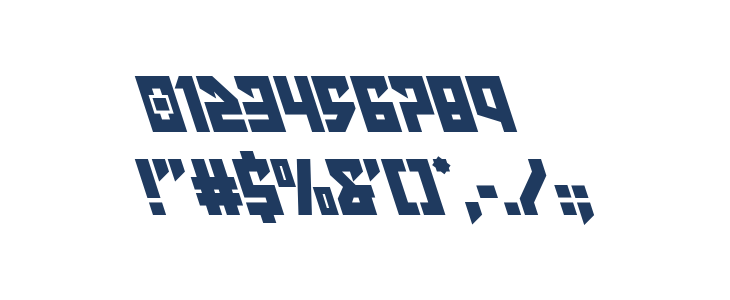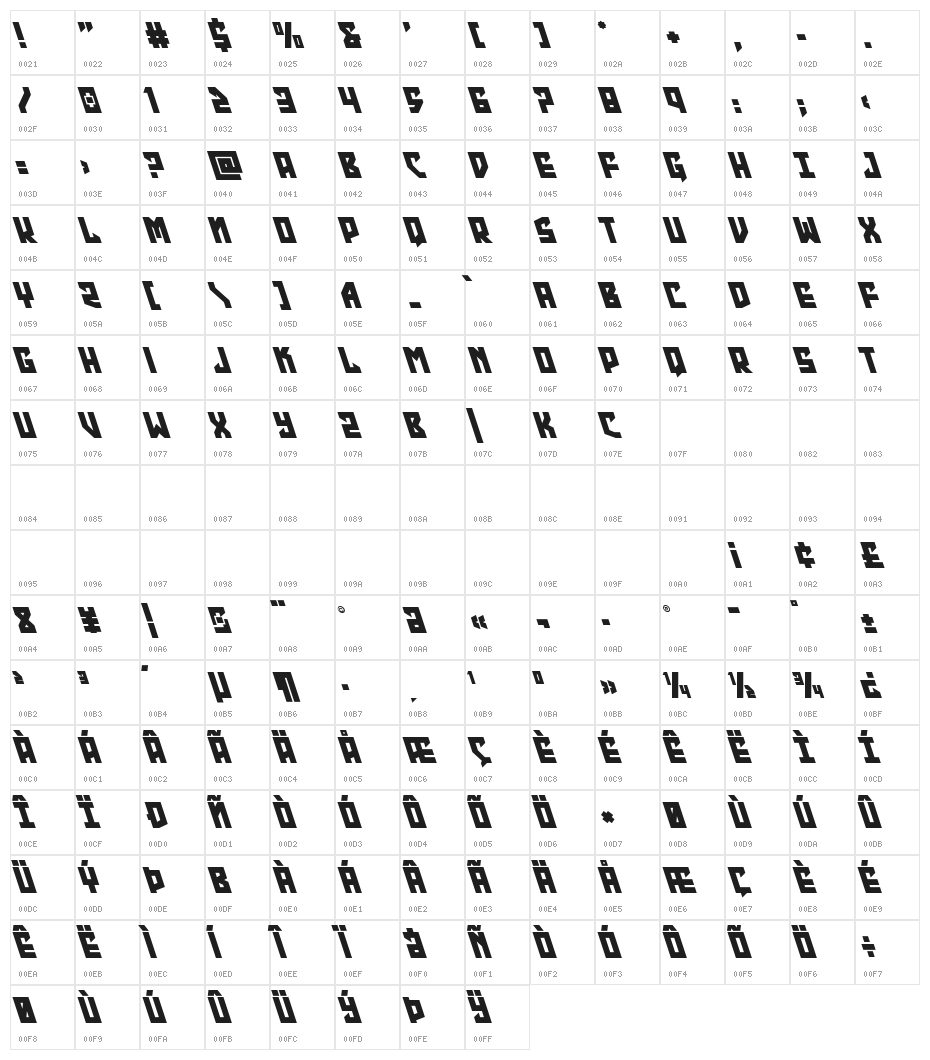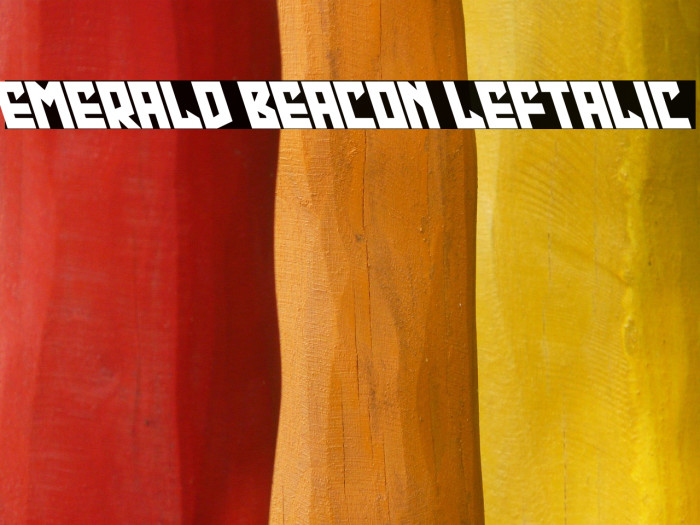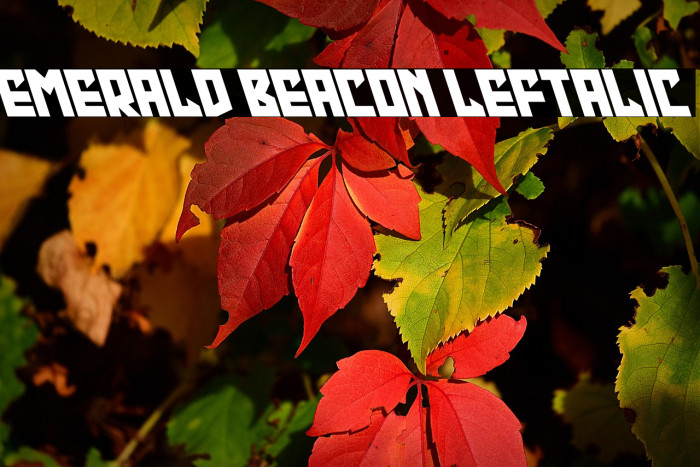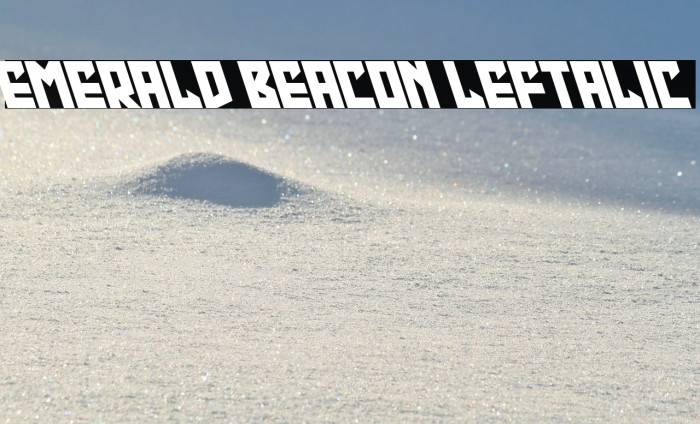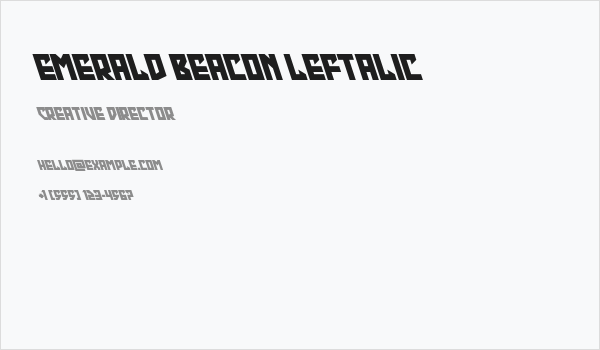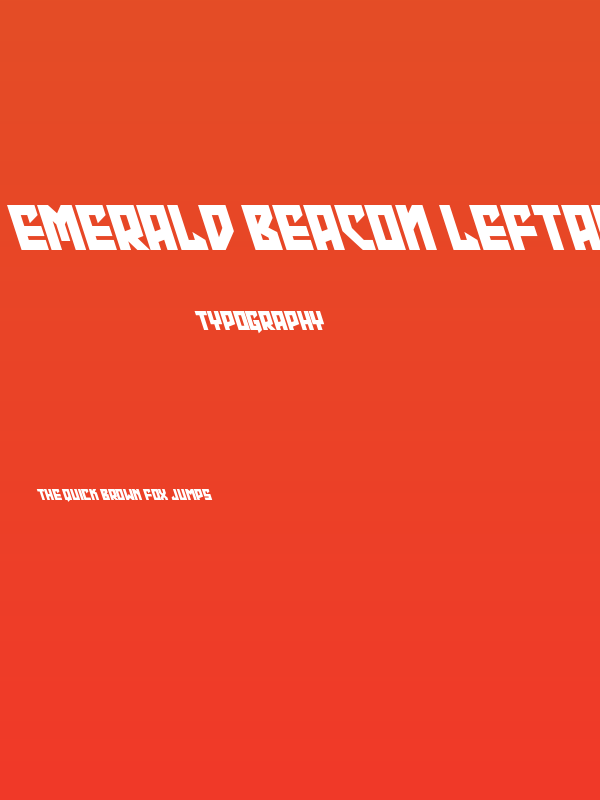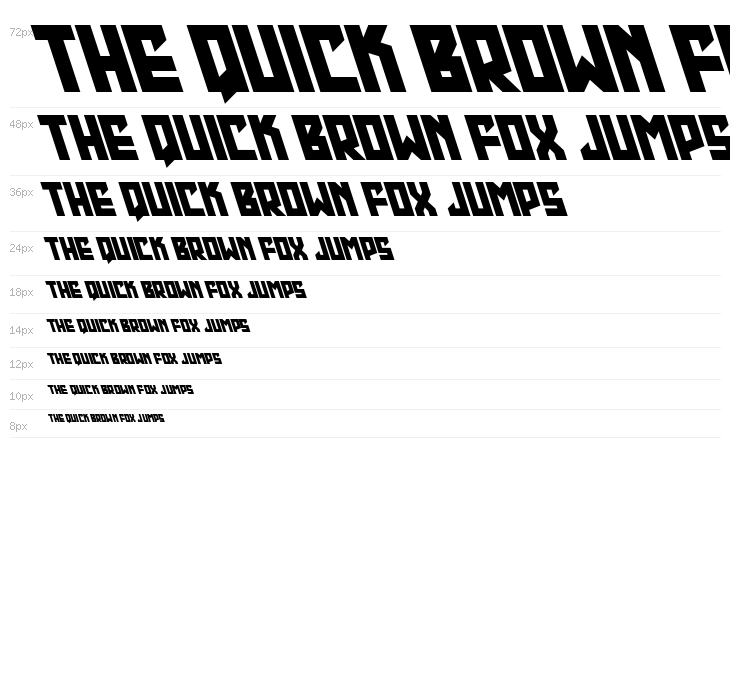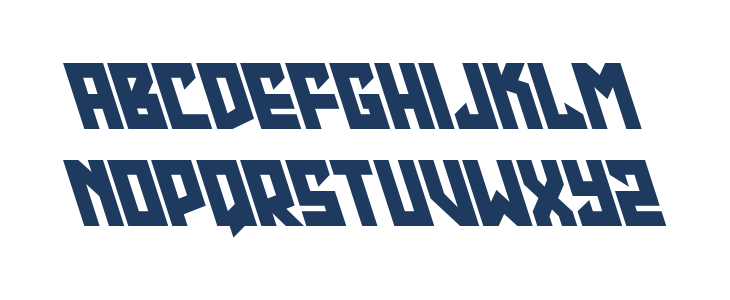
Emerald Beacon Leftalic Font
Emerald Beacon Leftalic Description
This font features a bold and angular design with a strong geometric influence. The characters are heavily stylized, with sharp edges and a block-like appearance that gives it a futuristic and dynamic feel. The uppercase and lowercase letters maintain a consistent width, creating a uniform look across the typeface. The numbers and special characters are equally bold, ensuring they stand out in any design. This font's unique style makes it suitable for projects that require a modern and edgy aesthetic.